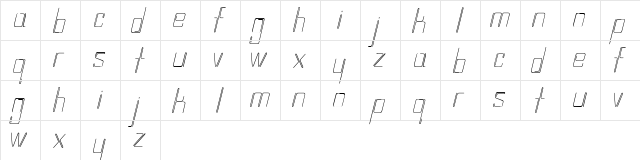
wireplay Italic Font Preview
wireplay Italic
wireplay Italic Font Details
Design Context for wireplay Typeface
wireplay takes a measured approach to typography — its balanced proportions and neutral character make it a reliable workhorse for both digital and print work. Its italic angle brings a sense of urgency and motion to the letterforms.
Pro Tip: Try wireplay for annotation and caption copy alongside an upright companion — the contrast in angle creates a dynamic but ordered typographic system.